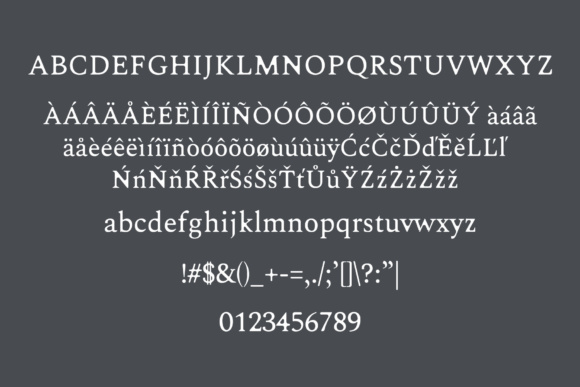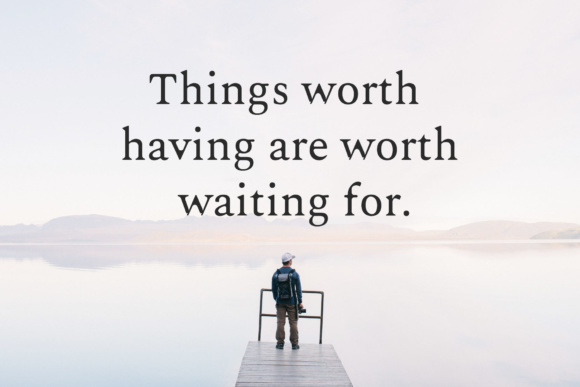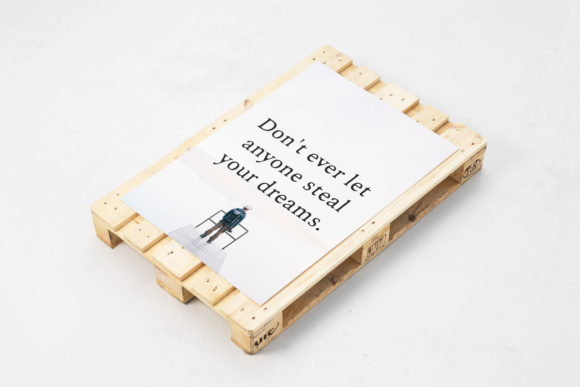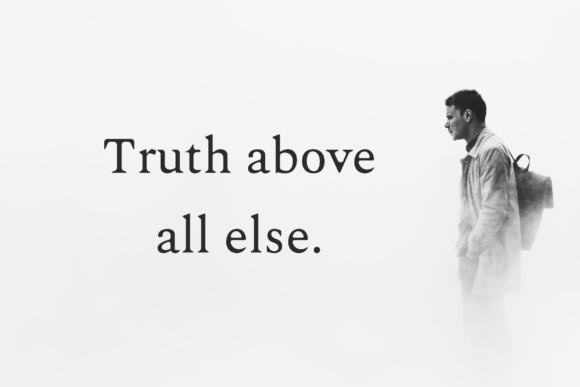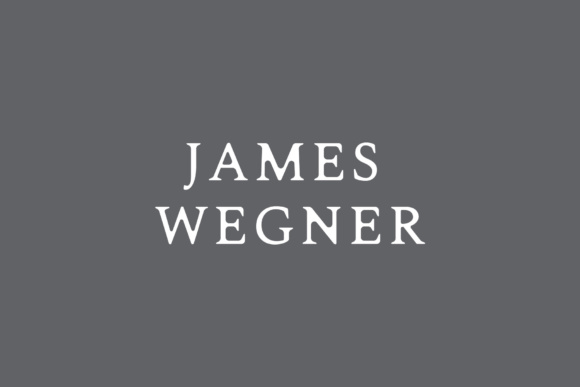
Introduction to Karoll Font
Karoll is a vintage font.
It has a sophisticated look and features sleek lines This font pairs beautifully with different display, signature, sans serif, script, or handwriting fonts.
Key Features of Karoll Font